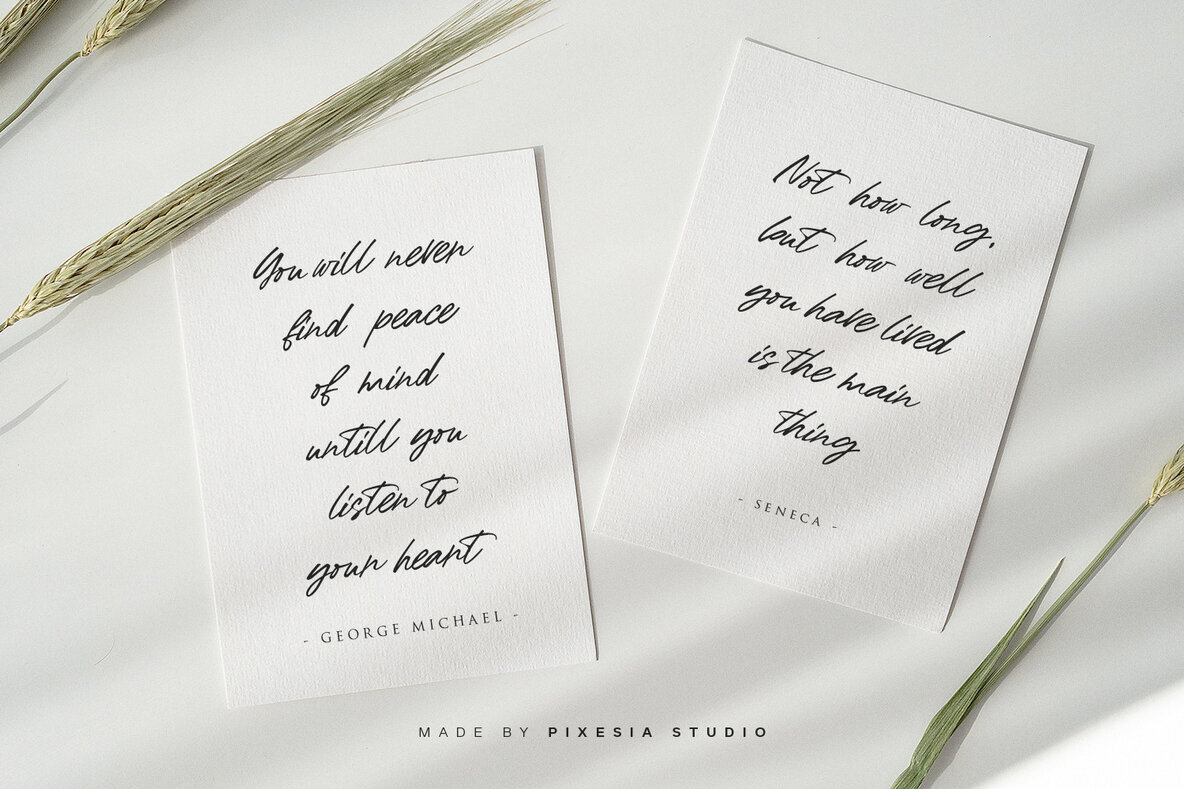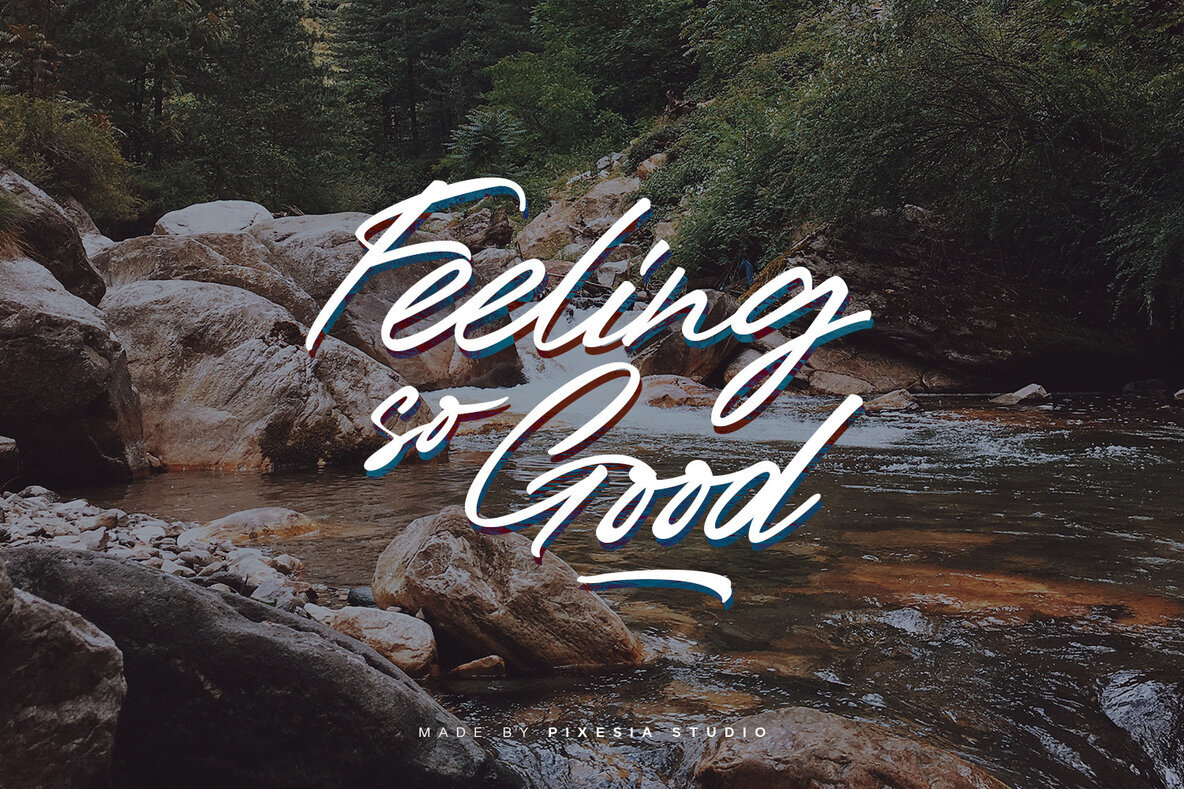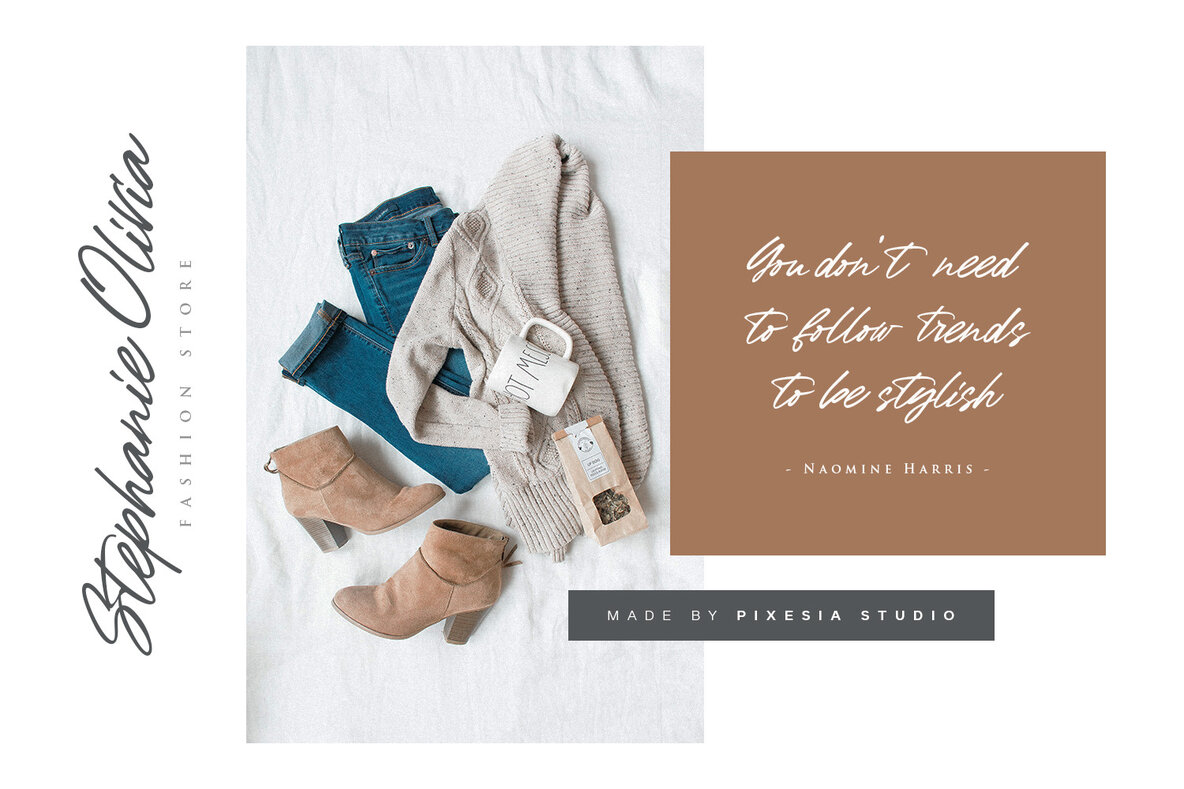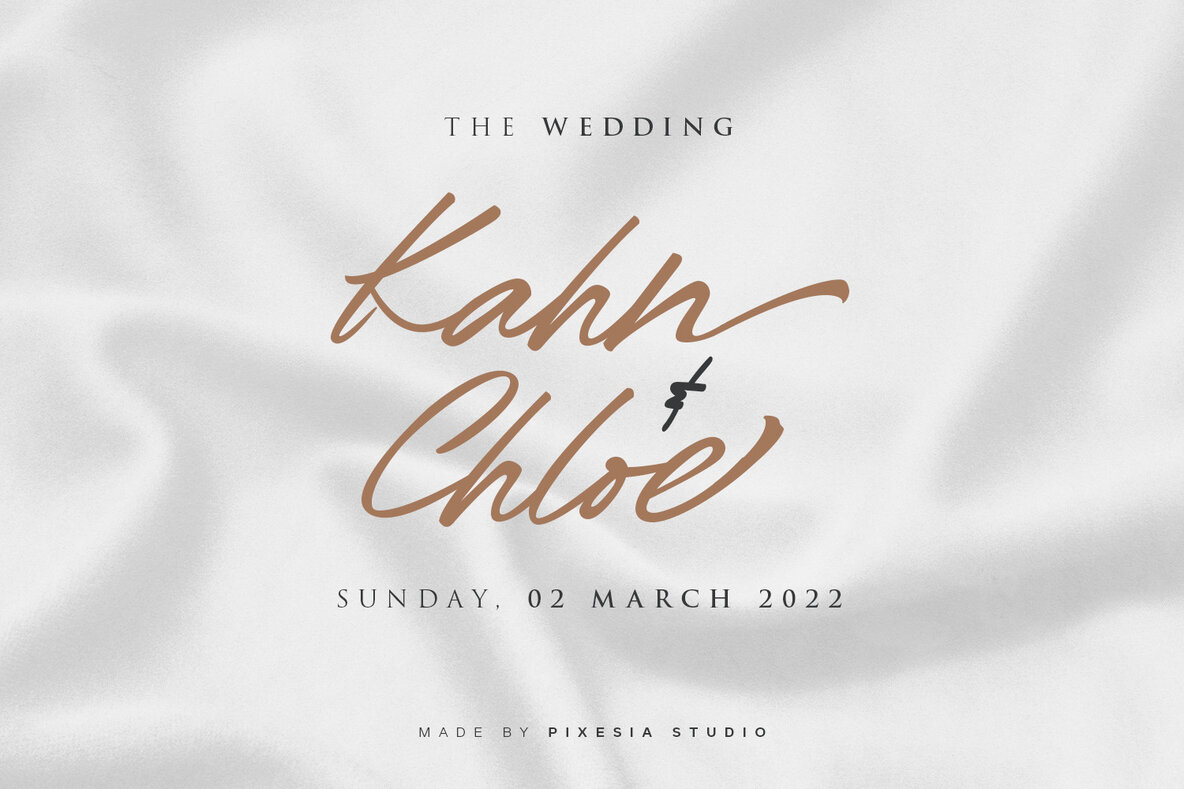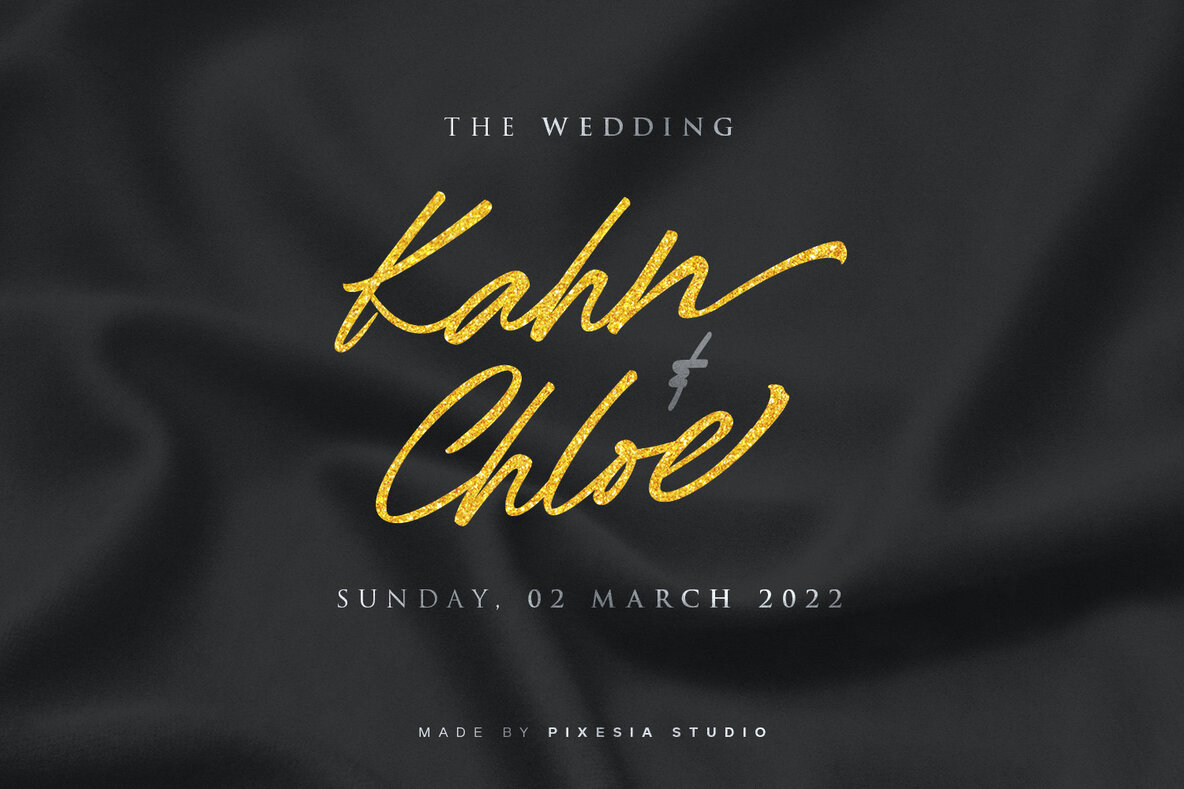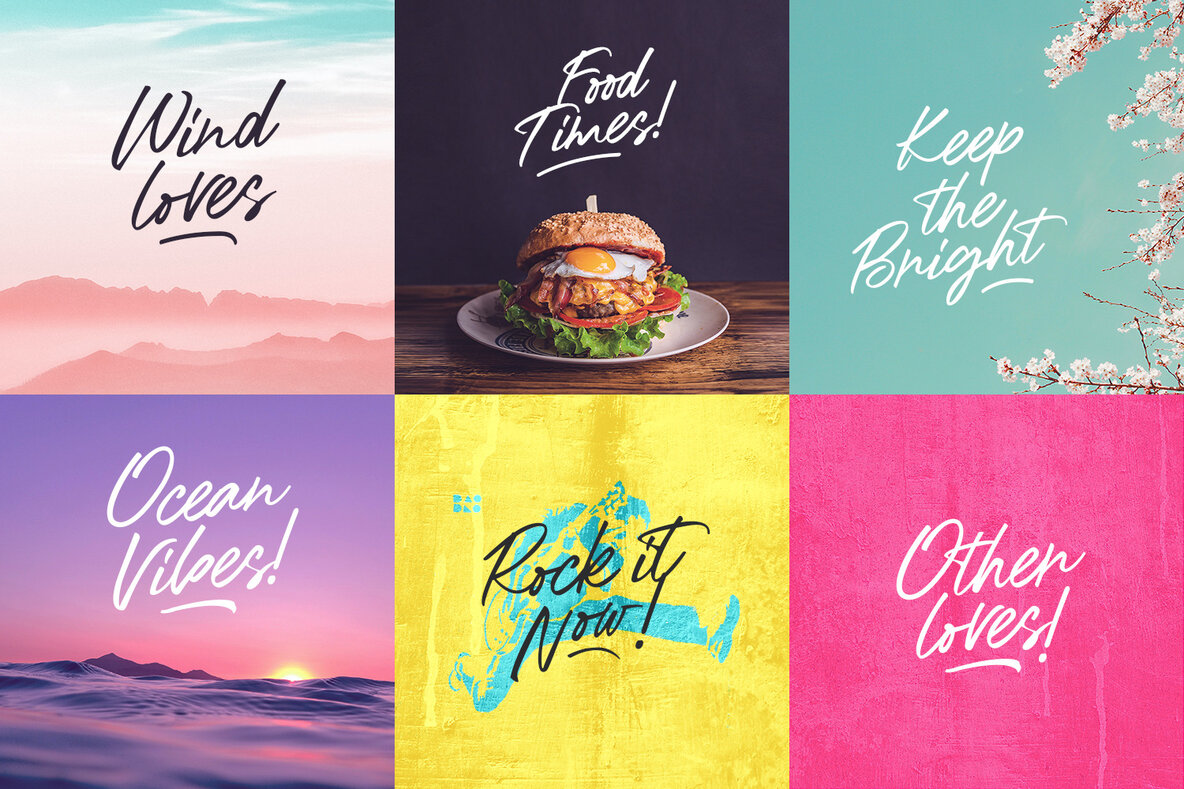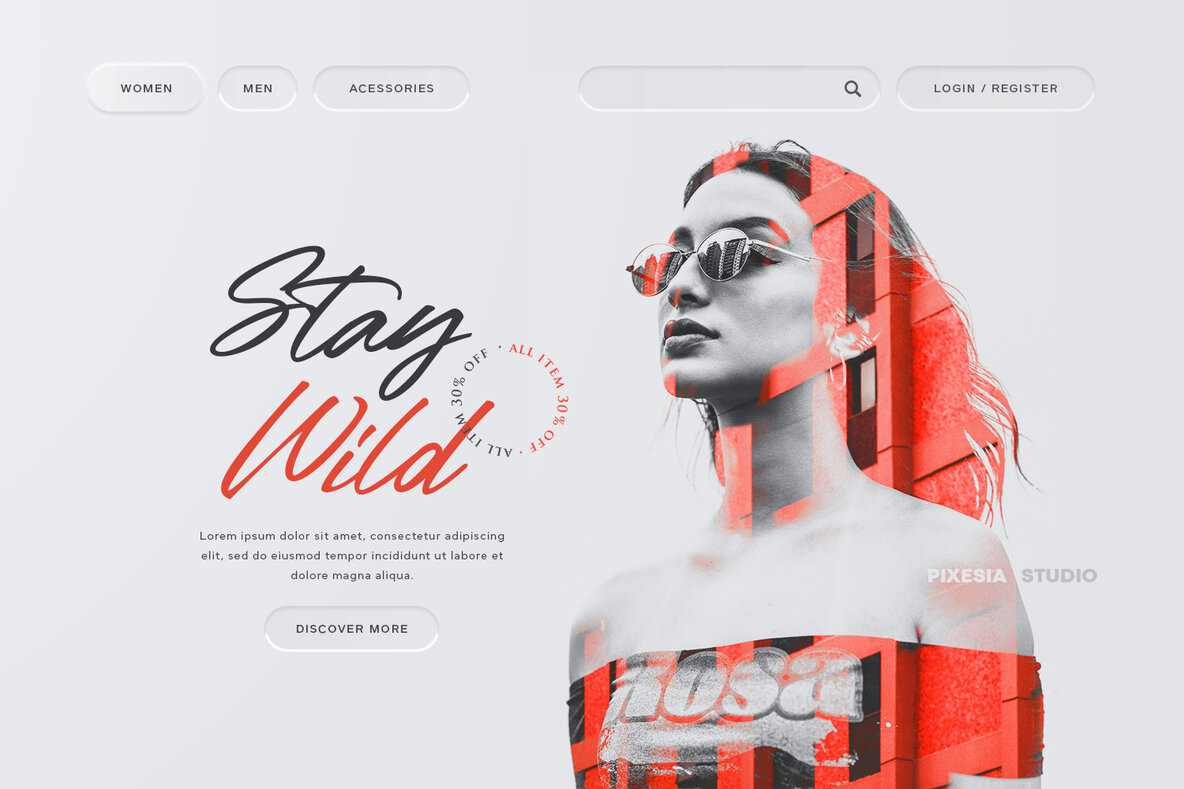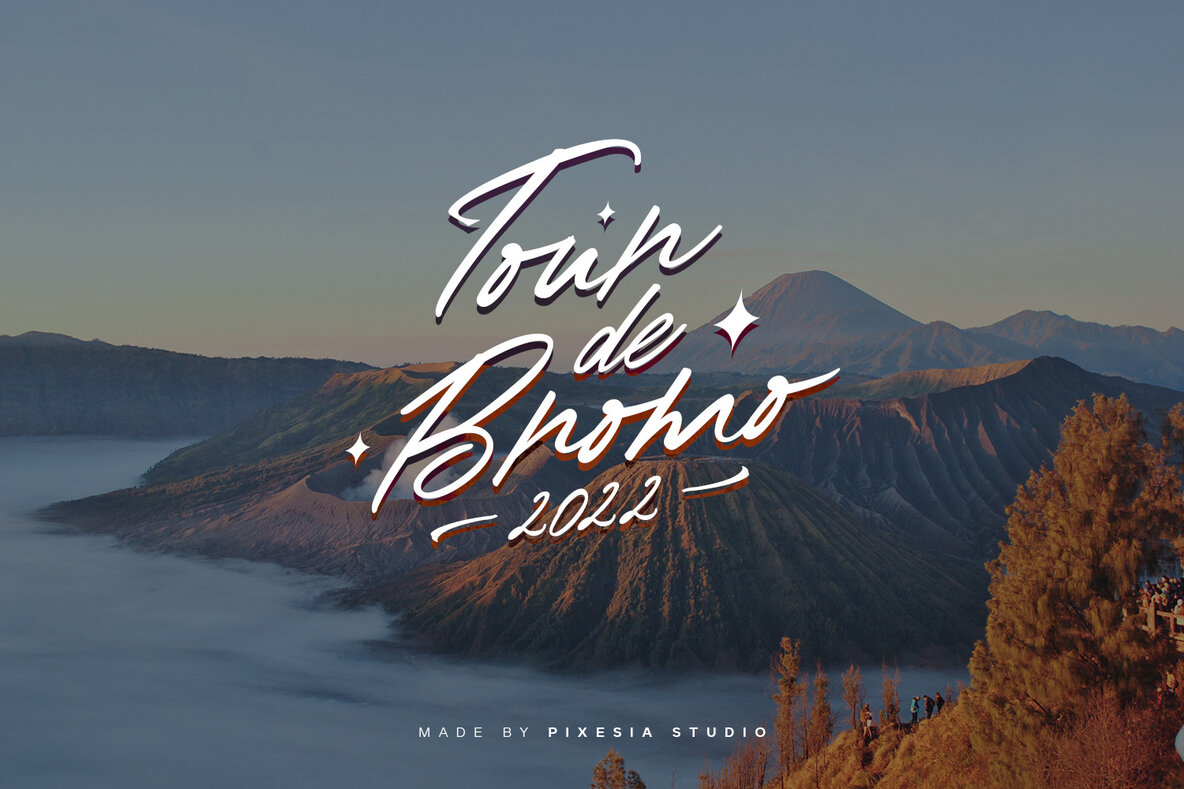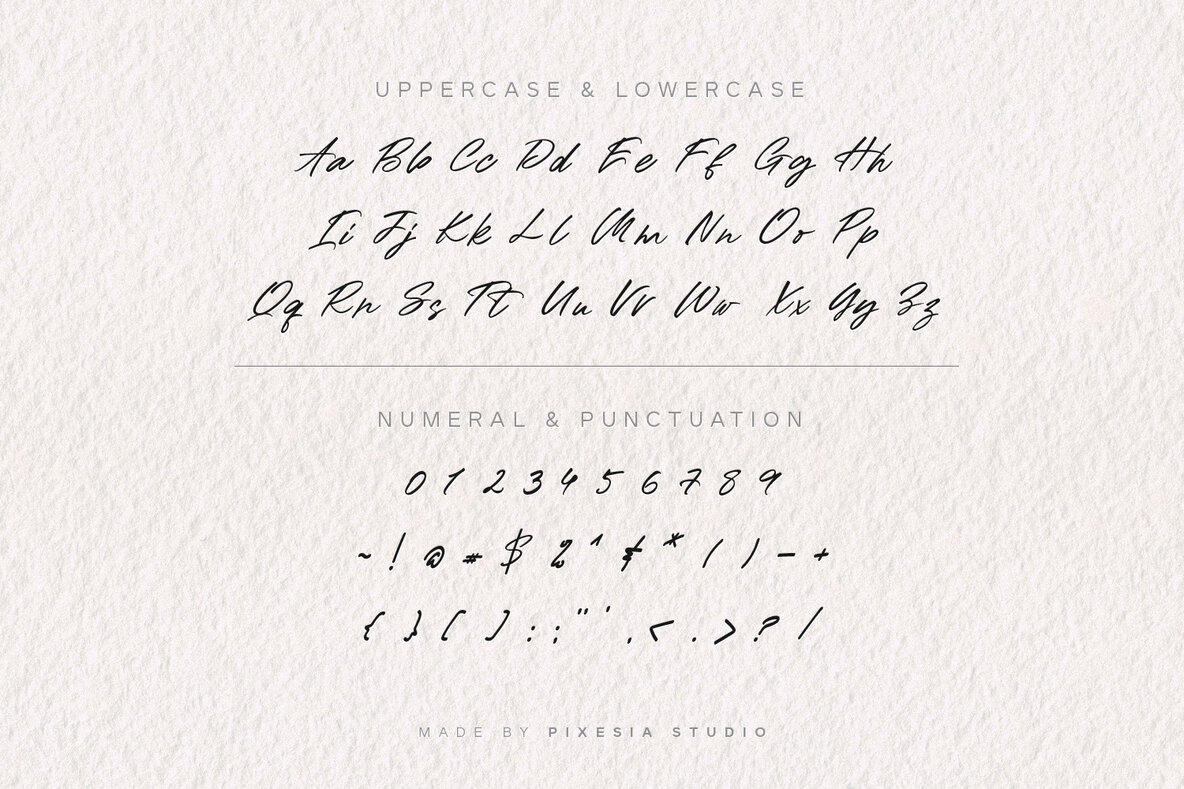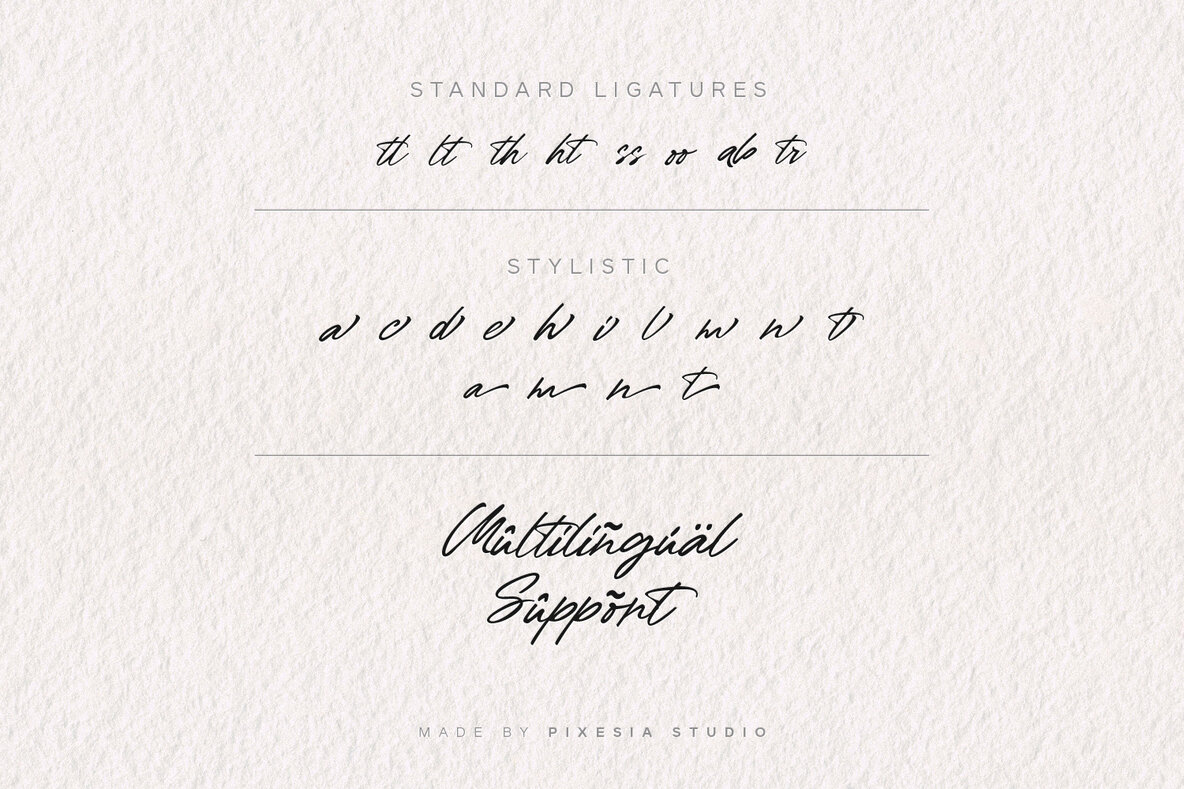
Barlouth Font
Barlouth is a sophisticated handwritten typeface by Pixesia Studio, celebrated for its delicate, elegant strokes and natural flow. Its soft curves and balanced characteristics create a beautiful typographic harmony, making it a versatile choice for various design needs. Ideal for quotes, poster design, personal branding, promotional materials, logotypes, and product packaging, Barlouth adds a touch of refinement to any project.Barlouth: A Handwritten Typeface with Flowing Elegance